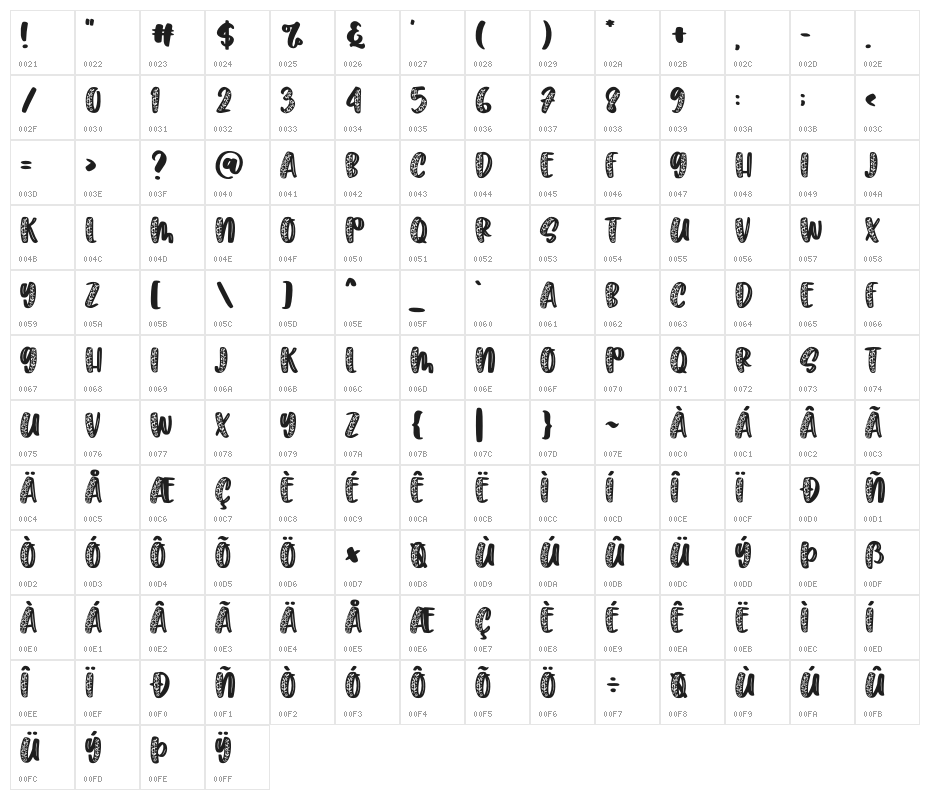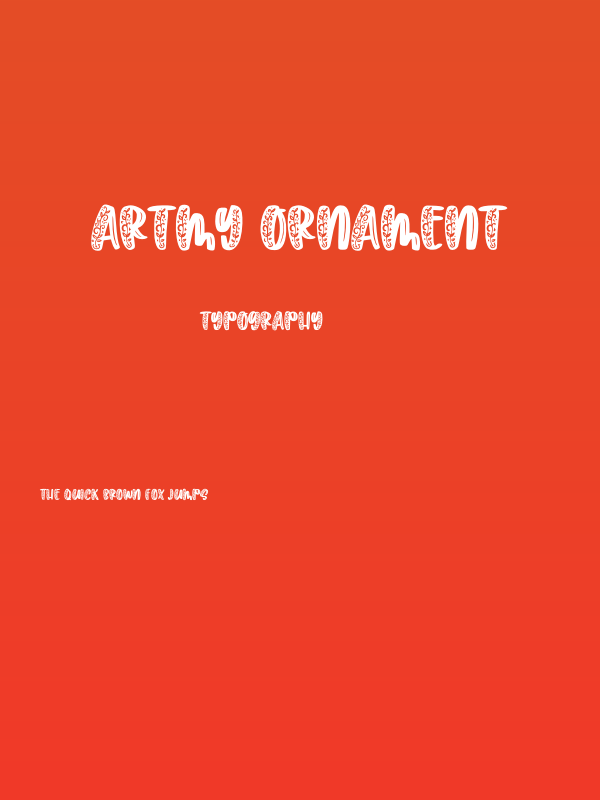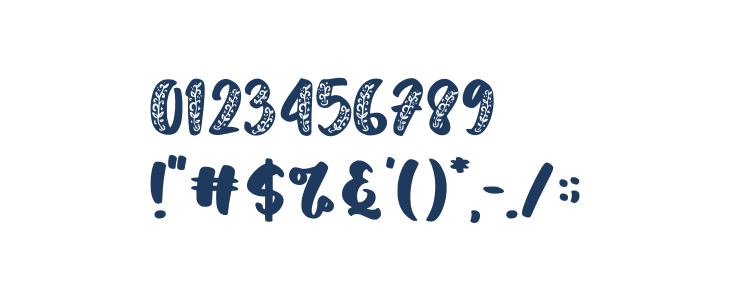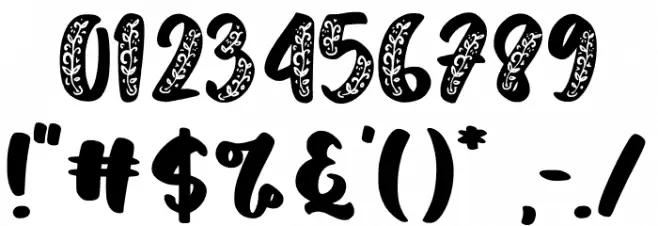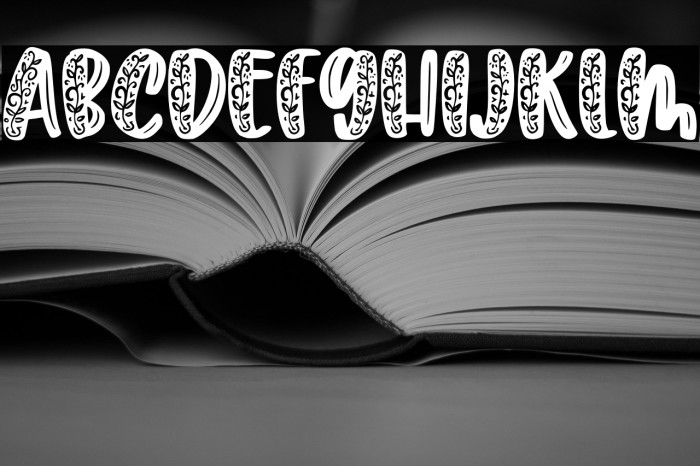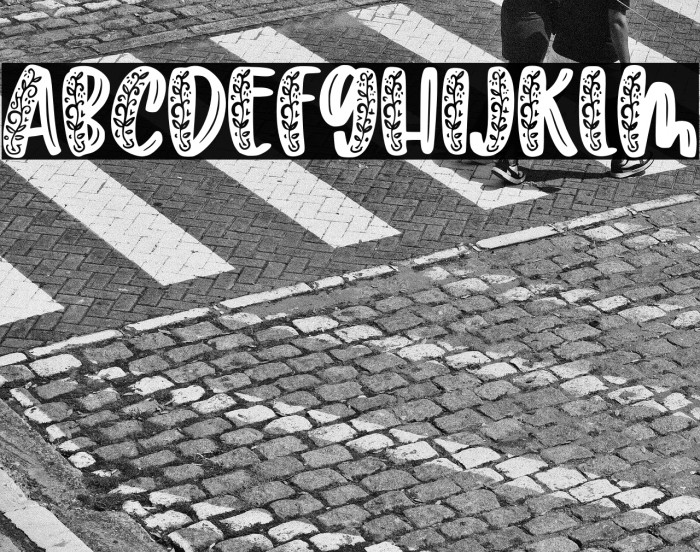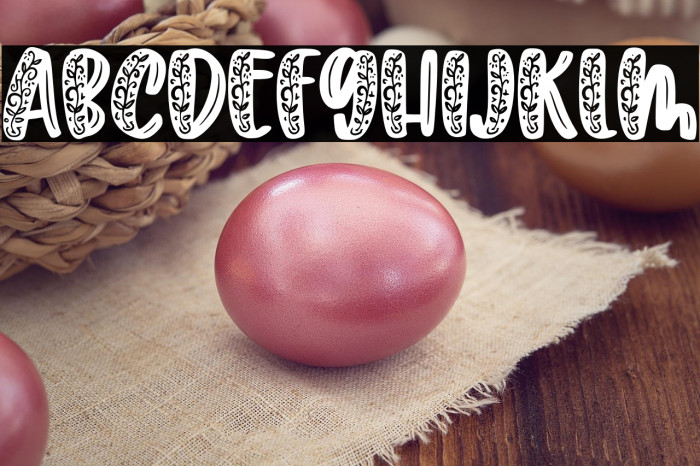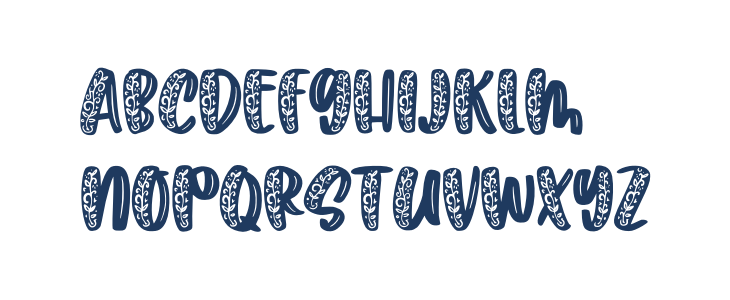
Artmy Ornament Font
Artmy Ornament Description
This font features an ornate and decorative style, with each character adorned with intricate floral patterns. The bold and playful design gives it a unique and artistic flair, making it stand out in any design project. The uppercase and lowercase letters maintain a consistent decorative theme, while the numbers and special characters are equally embellished, ensuring a cohesive look across all text elements. The font's whimsical nature and detailed ornamentation make it ideal for creative and expressive designs.
| Use Case | Headlines, Logos, Artistic projects |
| Proposed Projects | Ideal for wedding invitations, greeting cards, posters, and any project requiring a decorative and artistic touch. |